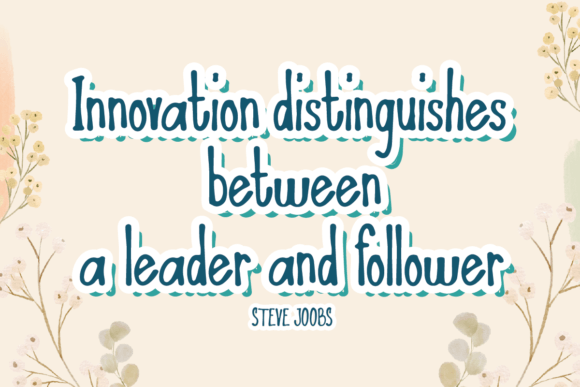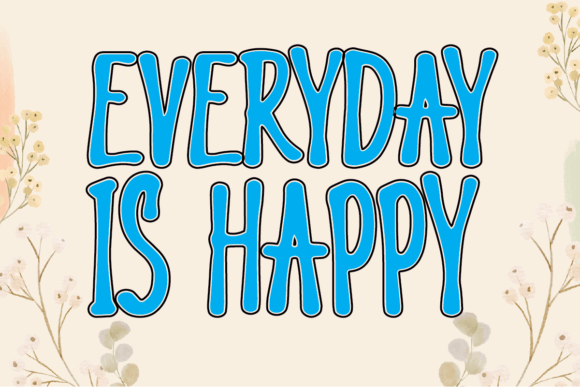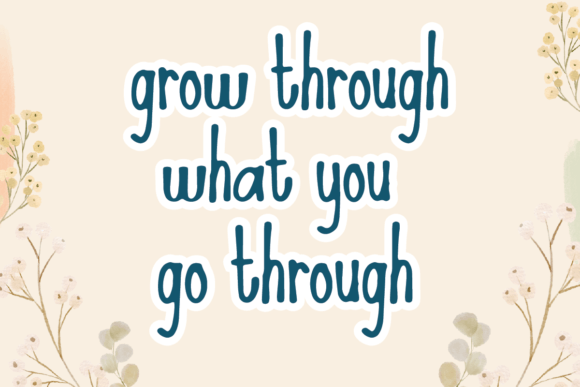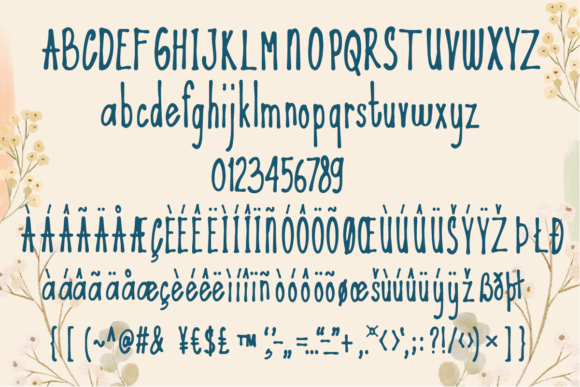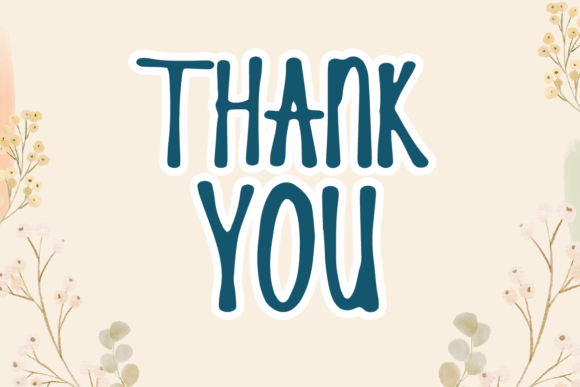
Introducing Broken Crowbar Font: The Perfect Hand-Drawn Font for Handicrafts, Clothing, and Stickers
Are you a designer, crafter, or DIY enthusiast looking for a unique and rustic font to add a personal touch to your projects? Look no further than the Broken Crowbar Font! This hand-drawn font is specifically designed to make your handicrafts, clothing, and stickers stand out, while also adding a touch of natural elegance to your displays.
Inspired by Nature: The Story Behind Broken Crowbar Font
The Broken Crowbar Font is inspired by the natural world, with a focus on capturing the imperfections and uniqueness of hand-drawn lettering. The font’s creator aimed to replicate the organic feel of handwritten text, making it perfect for projects that require a personal and rustic touch. Whether you’re designing a logo, creating a sticker, or making a craft, this font is sure to add a touch of authenticity and character to your work.
Key Features of Broken Crowbar Font
- Hand-drawn with love: Each letter has been carefully crafted by hand, giving the font a unique and organic feel.
- Perfect for handicrafts: The font’s rustic and natural look makes it ideal for use in handicrafts, such as woodworking, sewing, or pottery.
- Great for clothing and stickers: The Broken Crowbar Font is also perfect for designing clothing, stickers, or any other type of wearable art.
- Display-ready: With its bold and eye-catching design, this font is sure to make your displays stand out.
Why Choose Broken Crowbar Font?
So, why choose the Broken Crowbar Font over other fonts available online? Here are just a few reasons:
- Uniqueness: The Broken Crowbar Font is a one-of-a-kind font that will set your projects apart from others.
- Versatility: This font can be used in a wide range of projects, from crafting and DIY to graphic design and advertising.
- Experiment with different sizes: The Broken Crowbar Font looks great in a variety of sizes, from small and delicate to large and bold.
- Pair with other fonts: Try pairing the Broken Crowbar Font with other fonts to create a unique and eye-catching design.
- Use in digital and print projects: This font is perfect for use in both digital and print projects, from social media graphics to flyers and brochures.
| Font Name | Broken Crowbar Font |
| Author | studiohellogood |
Collect and Create with Broken Crowbar Font